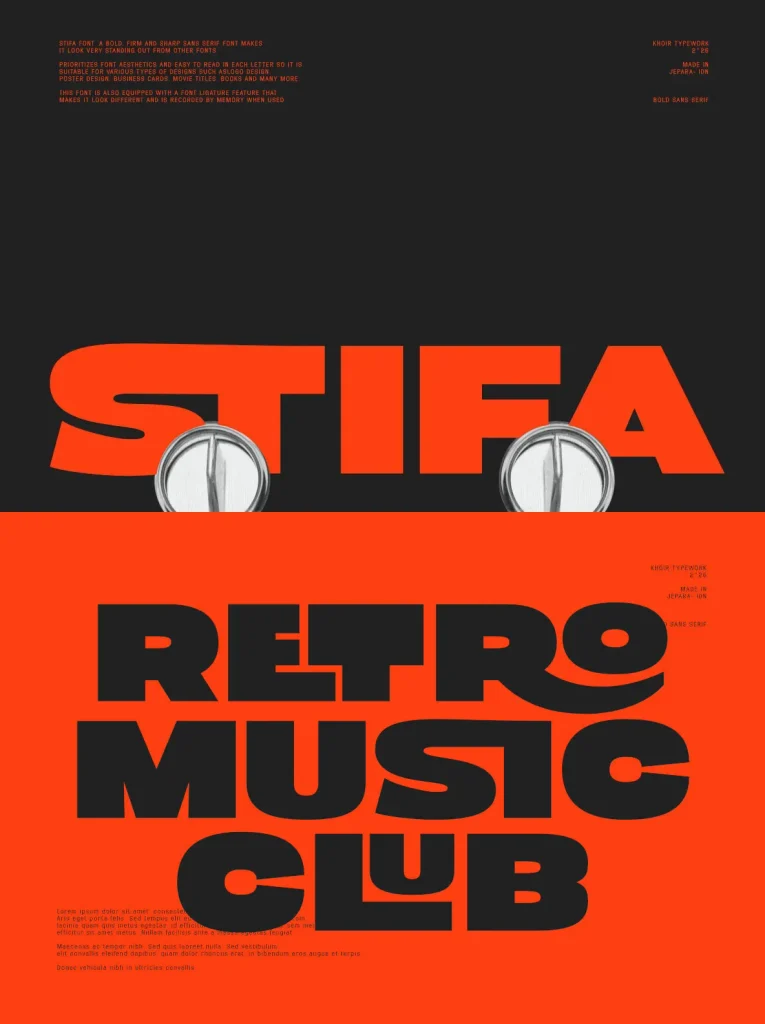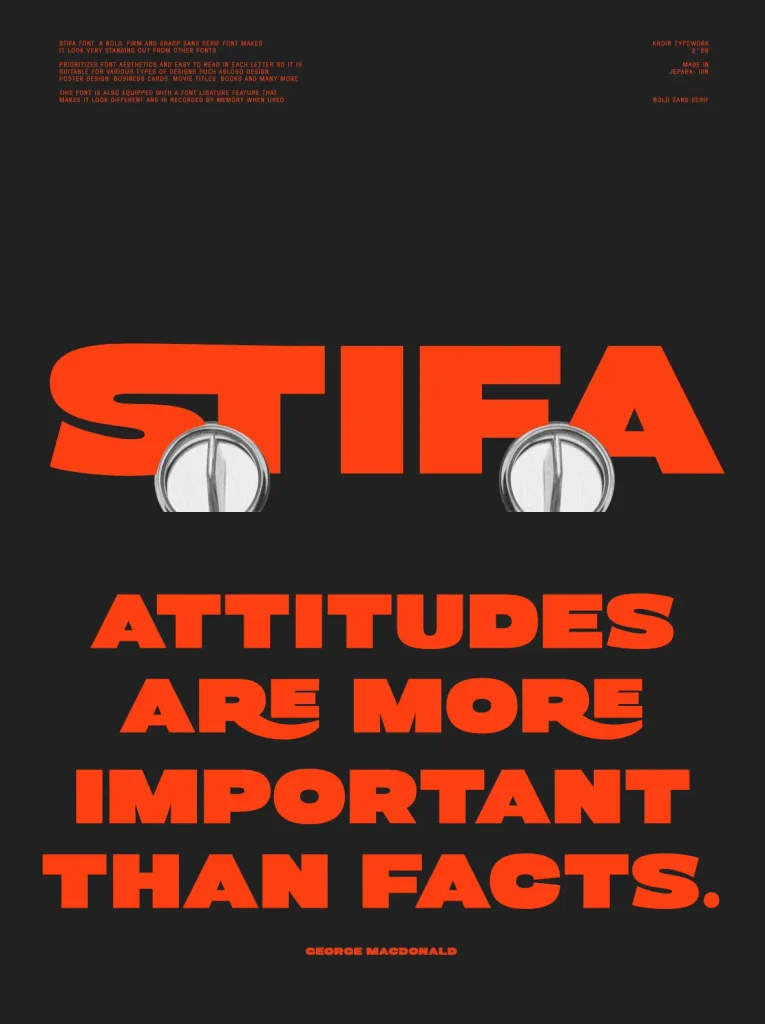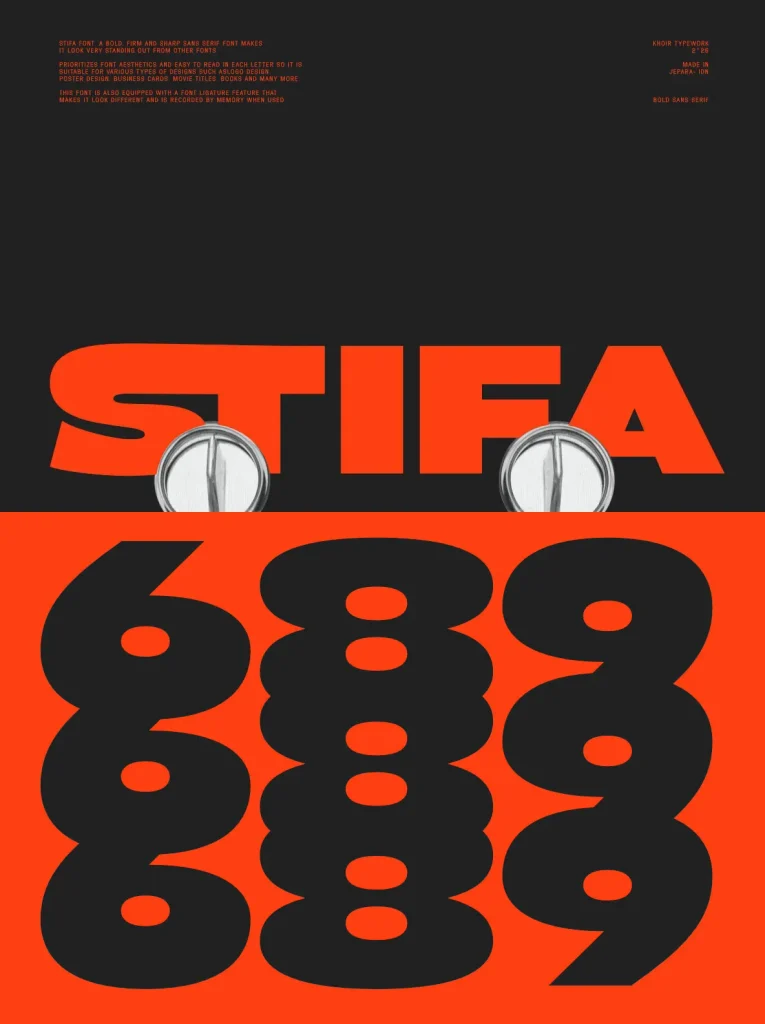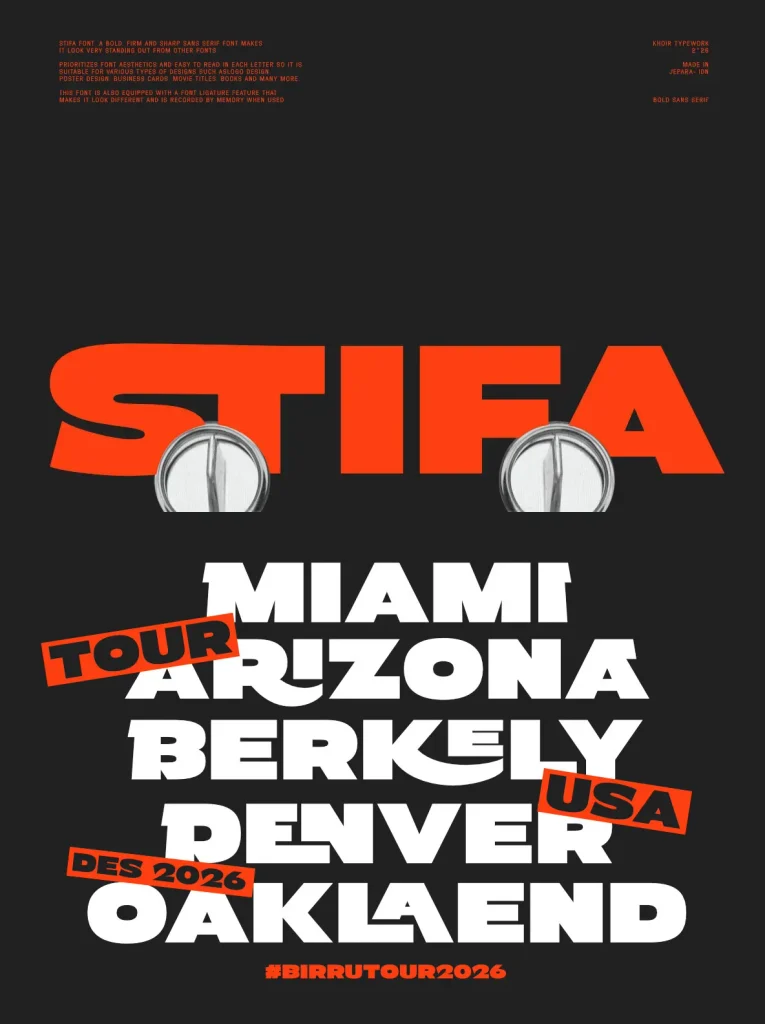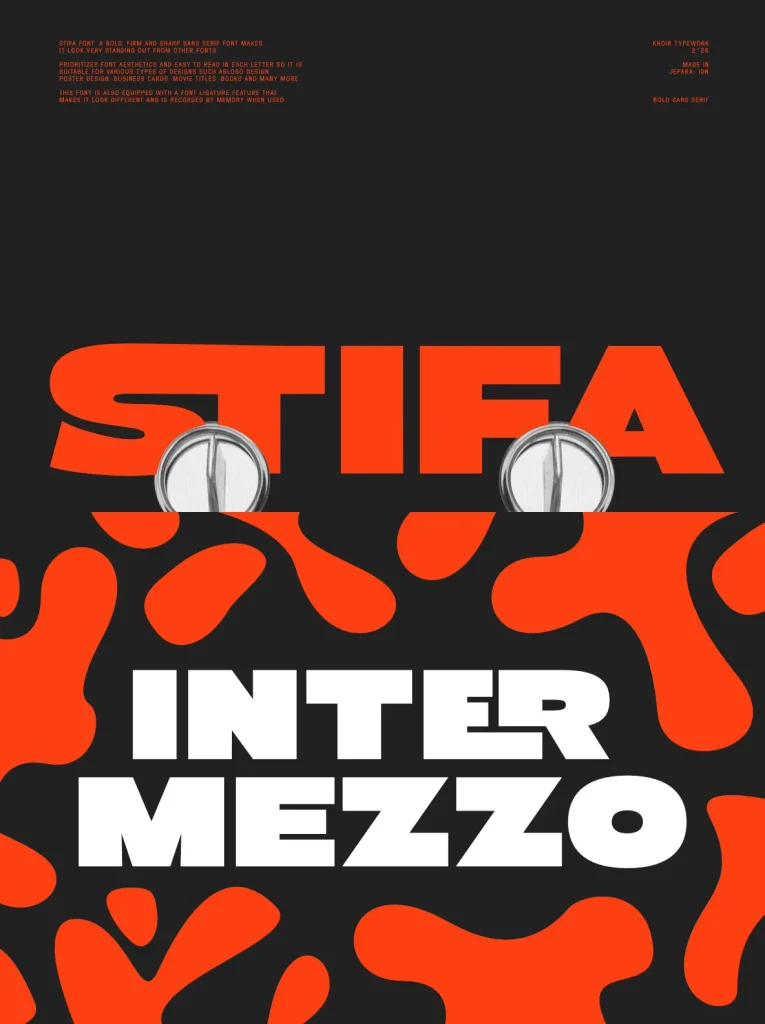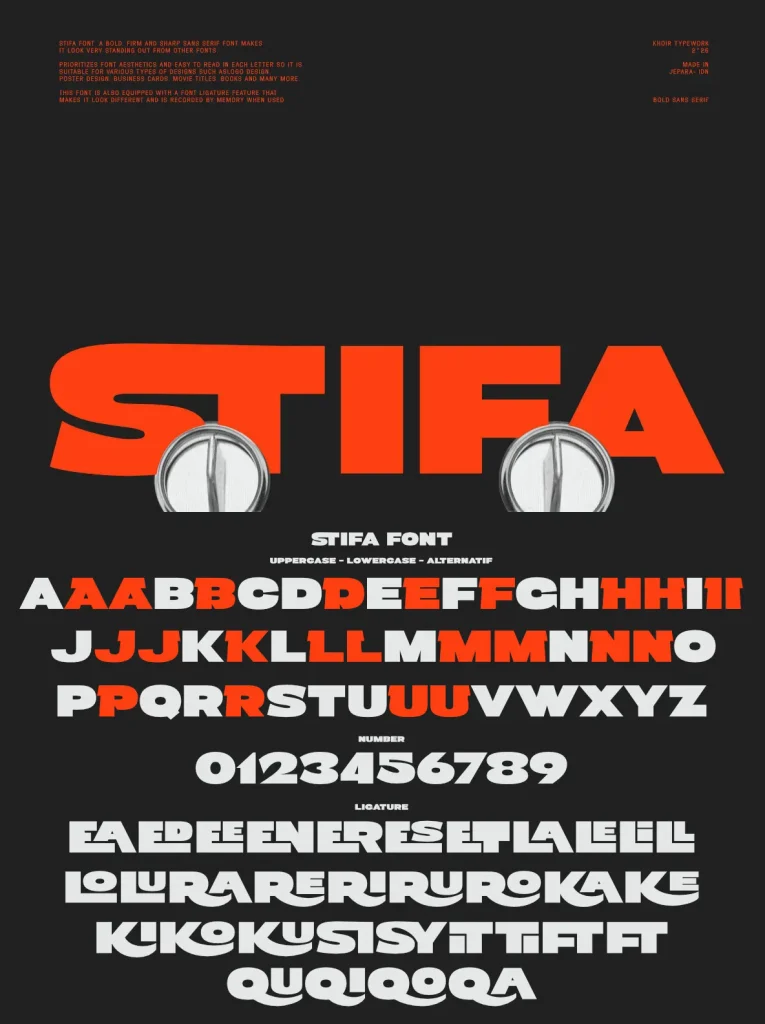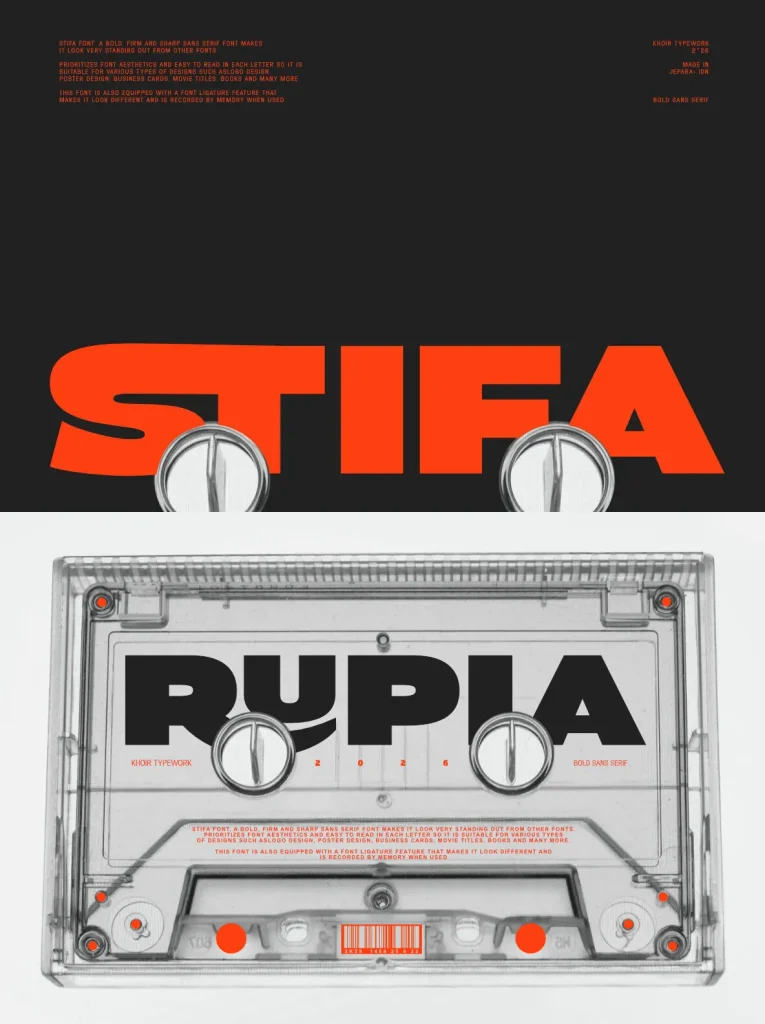
STIFA — Bold Edges, Clear Impact
STIFA is a bold, sharp sans serif font with a strong visual presence. It stands out with confident letterforms while keeping readability at the center of the design. Its balance of aesthetics and clarity makes it suitable for a wide range of creative and professional work.
Use STIFA for logos, posters, business cards, movie titles, books, and more. The font also includes ligatures and font alternatives, giving designers useful options to refine emphasis and visual rhythm across display typography, branding, and editorial layouts.
Stifa
Uppercase/Lowercase
Ligature